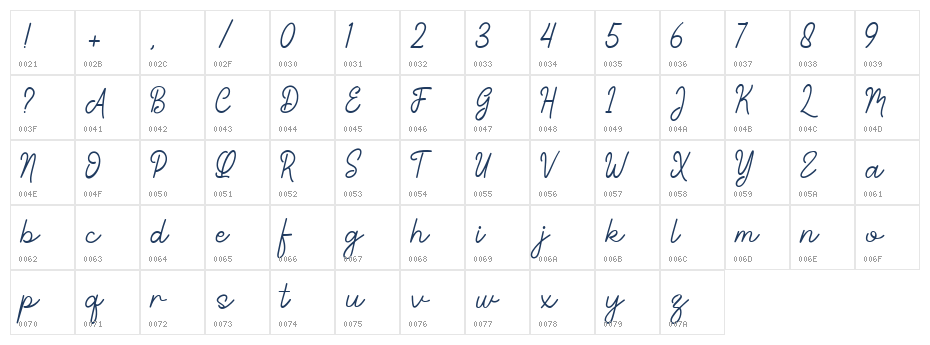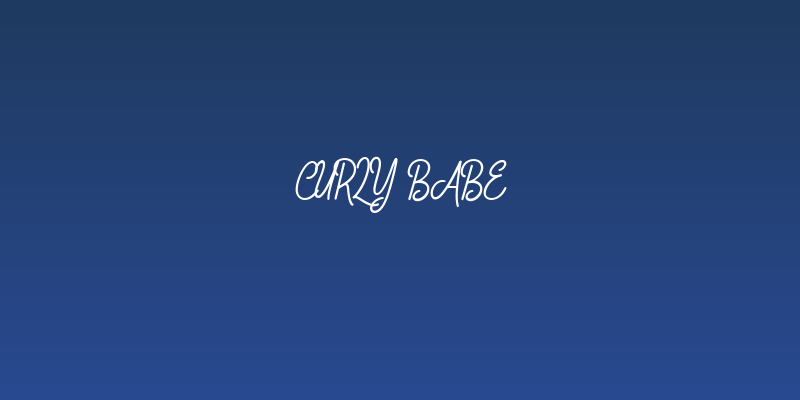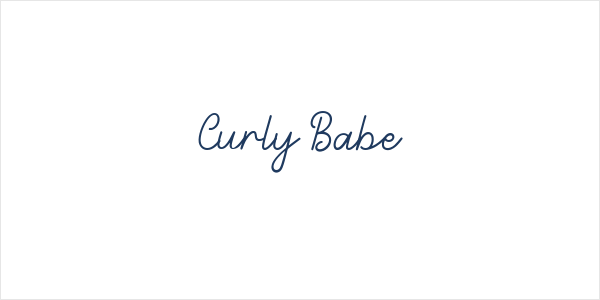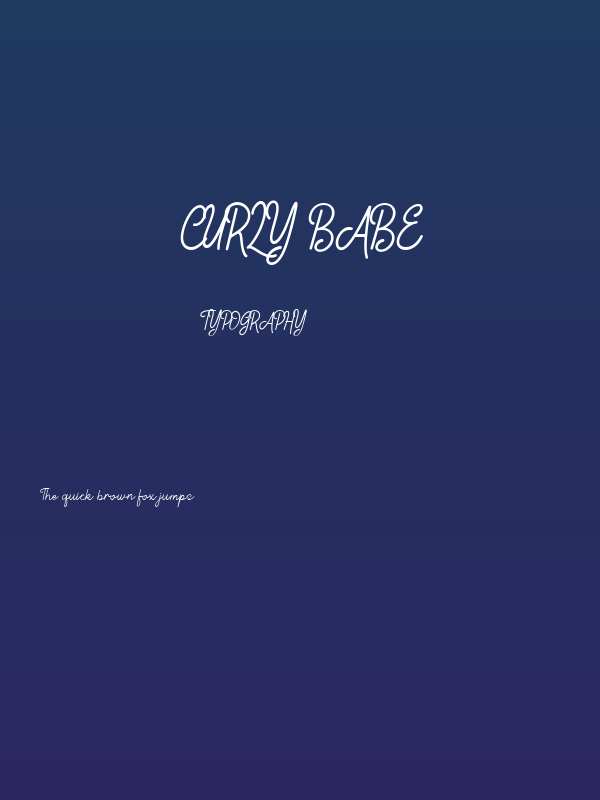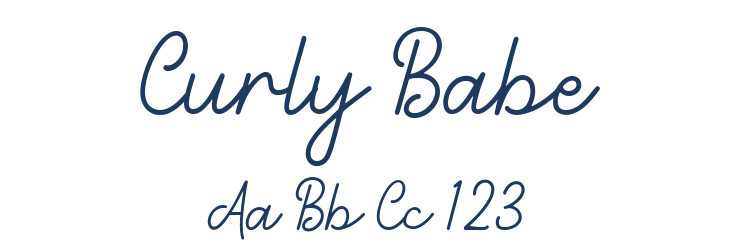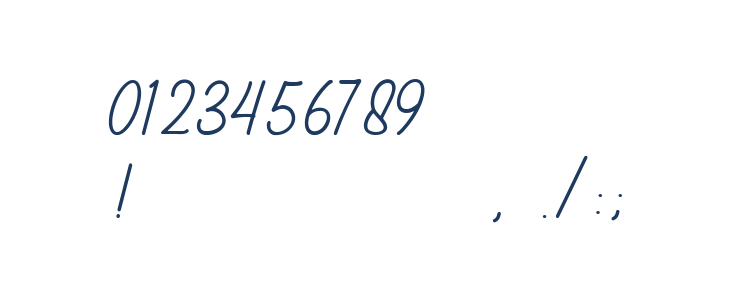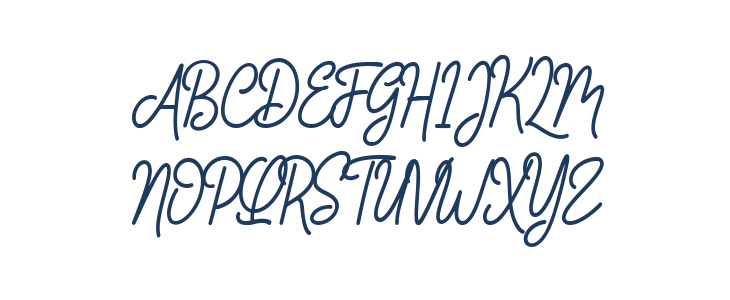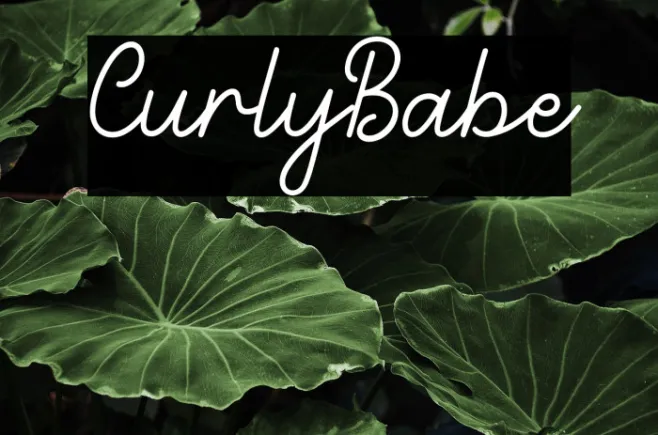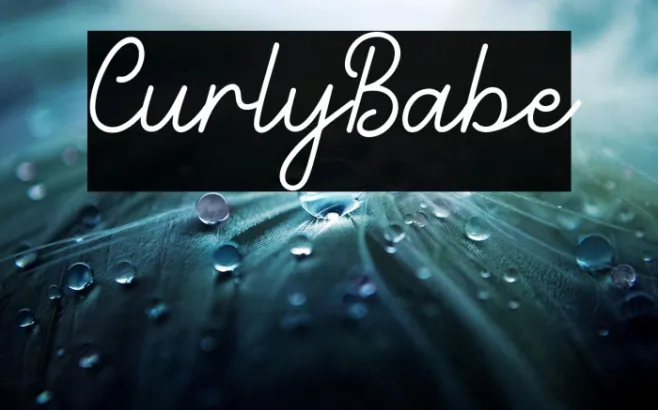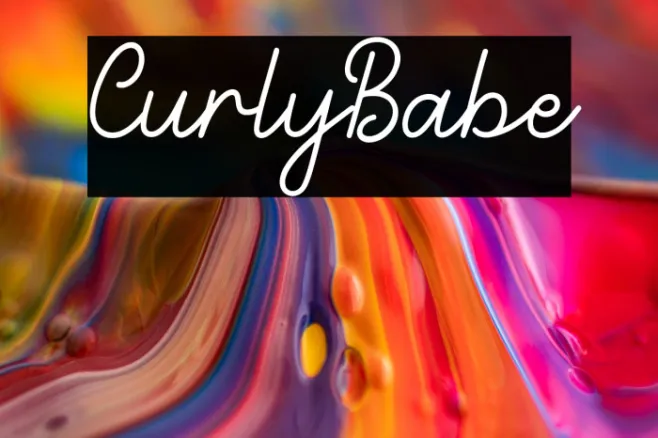
Curly Babe Font
Curly Babe Description
A cursive, handwritten style font with elegant, flowing letterforms and a casual, friendly appearance.
| Overall Style | Casual, Elegant, Handwritten |
| Use Case | Invitations, Greeting Cards, Personal Branding, Logos, Decorative Text |